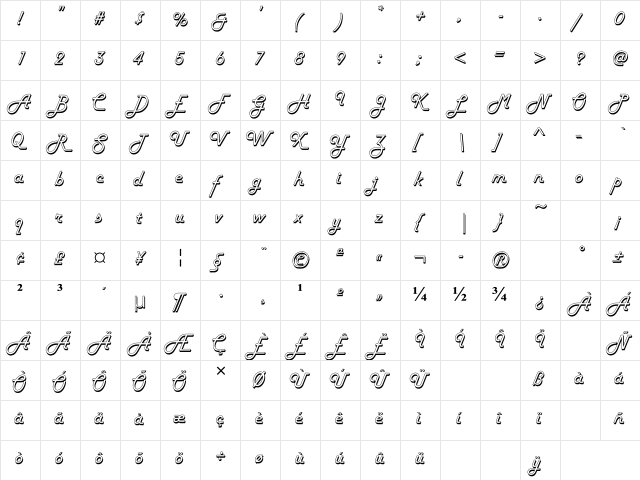
UKIJ Diwani Kawak Regular Font Preview
UKIJ Diwani Kawak Regular
UKIJ Diwani Kawak Regular Font Details
| Foundry | Uyghur Computer Science Association |
| Designer | Tursunjan Sultan (alp) |
Design Context for UKIJ Diwani Kawak Typeface
UKIJ Diwani Kawak is a composed and adaptable typeface that performs quietly and consistently across a wide range of design contexts.